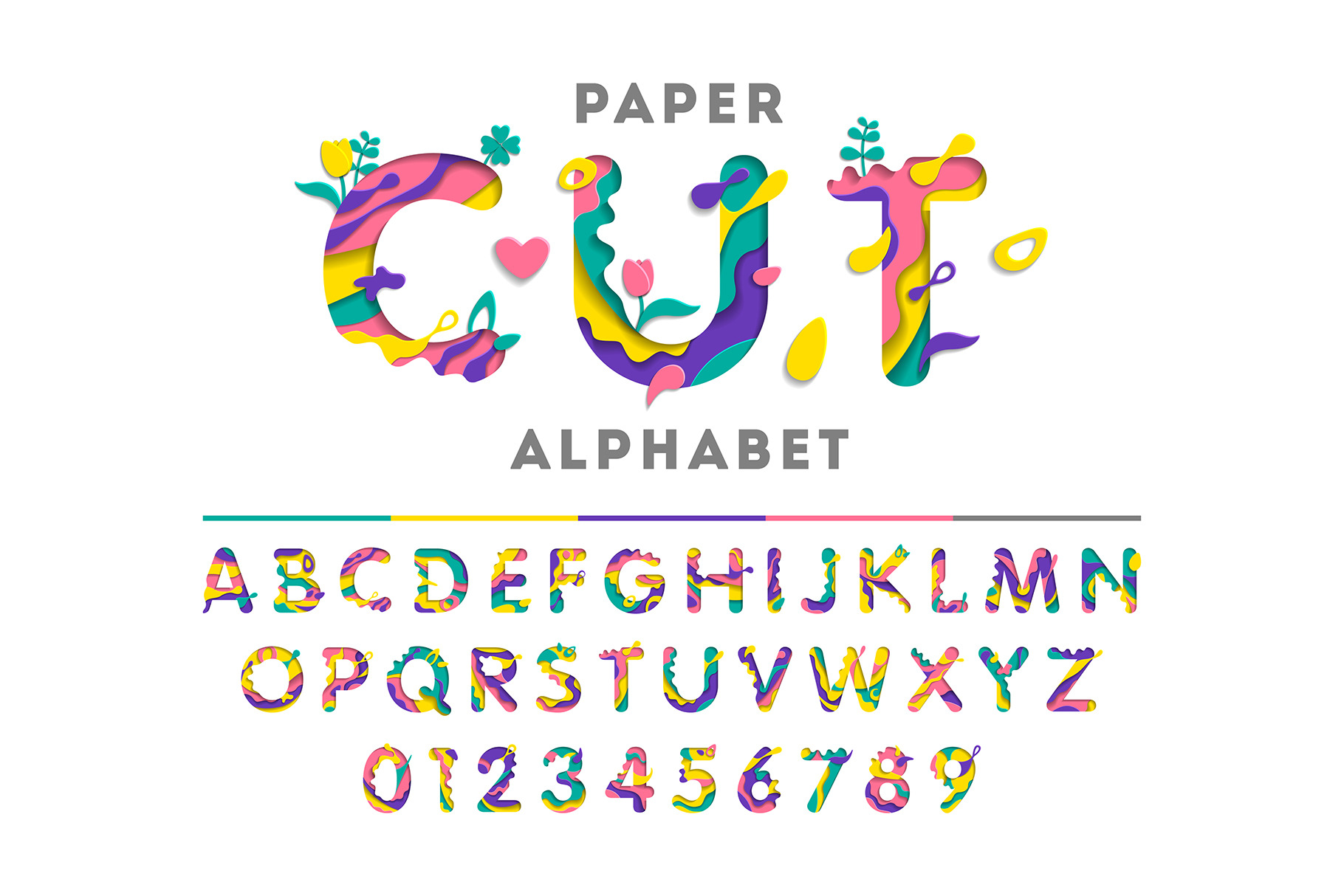
Paper cut Alphabet Font Set
Paper cut Alphabet Font. Colorful Decorative Typeface with Flowers, Leaves, Paper Cut Shapes and Liquid Paint Style for Modern Creative Design - EPS (Not a Font!)
- Uppercase letters A - Z
- Numbers 0 - 9
- Clean, modern, and unique alphabet design